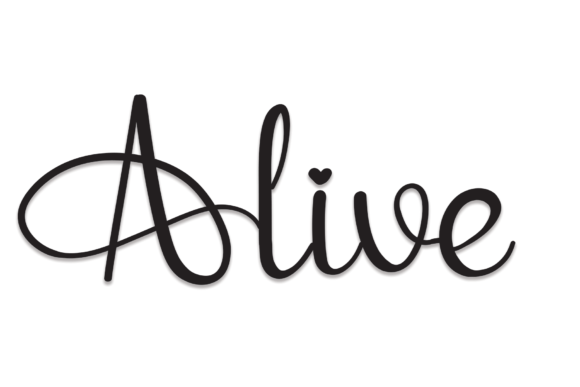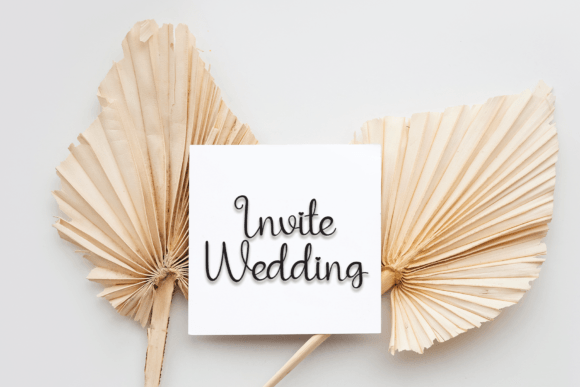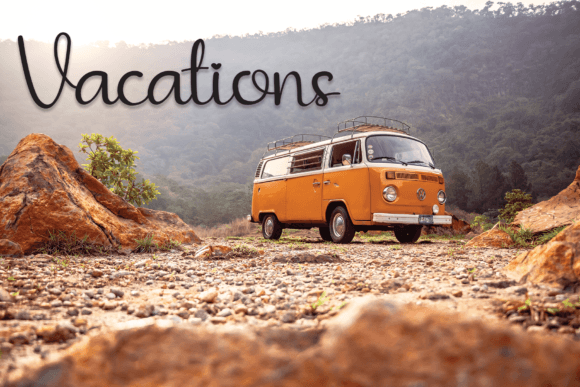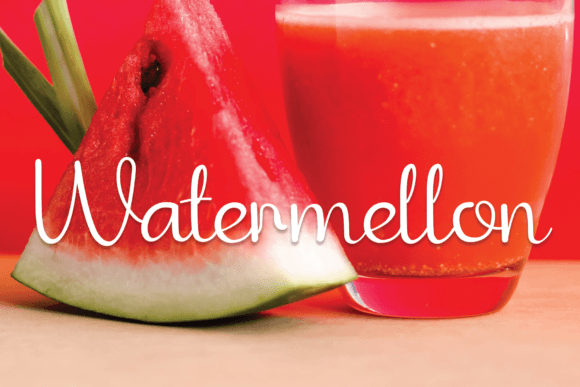
About Alive Font Download
The Alive Font Download is a fun and friendly handwritten script that brings energy and personality to your projects. With smooth handwritten strokes and approachable style, this font adapts well to both personal crafts and professional designs. Whether you are creating invitations, posters, or digital content, Alive adds playful charm and creativity.
A Handwritten Script with Joyful Energy
The Alive script font blends casual handwritten rhythm with modern design balance. As a result, it feels approachable, versatile, and stylish. Furthermore, it transitions easily from small stationery to large branding projects, which makes it a flexible tool for designers.
Handwritten fonts always add warmth and individuality. The Alive Font is perfect for wedding invitations, thank you cards, birthday notes, and seasonal greetings. Because of its cheerful handwritten curves, every design feels heartfelt and unique. In addition, it ensures your projects leave a lasting impression.
Branding and Logo Design with Alive Font
Typography shapes the way brands are perceived. The Alive handwritten font is excellent for boutique logos, product packaging, and marketing visuals. Its friendly handwritten style gives businesses a professional yet creative look. Therefore, it works especially well for fashion, lifestyle, and craft industries.
Posters, Titles, and Editorial Displays
The Alive Font Download also shines in posters, magazines, banners, and book covers. It maintains clarity at all sizes while adding handwritten character. Consequently, it is a dependable choice for designers who value creativity and readability.
In today’s fast-paced digital world, fonts must be engaging and adaptable. The Alive typeface integrates smoothly into Instagram posts, YouTube thumbnails, Pinterest pins, and blogs. Because of its fun handwritten charm, it ensures that digital projects look modern and eye-catching.
Why Designers Choose Alive Typeface
Designers appreciate fonts that balance playfulness with usability. The Alive handwritten script maintains its joyful personality while staying easy to read. This balance makes it ideal for professionals and hobbyists alike. Moreover, its timeless handwritten look ensures it will stay relevant for years to come.
Add Fun and Personality to Your Projects Today
If you need a handwritten script that feels fun, friendly, and versatile, the Alive Font Download is the perfect choice. From invitations and greeting cards to posters, branding, and social media, it enriches every project with warmth and creativity. Finally, download Alive today and let your designs shine with handwritten beauty.